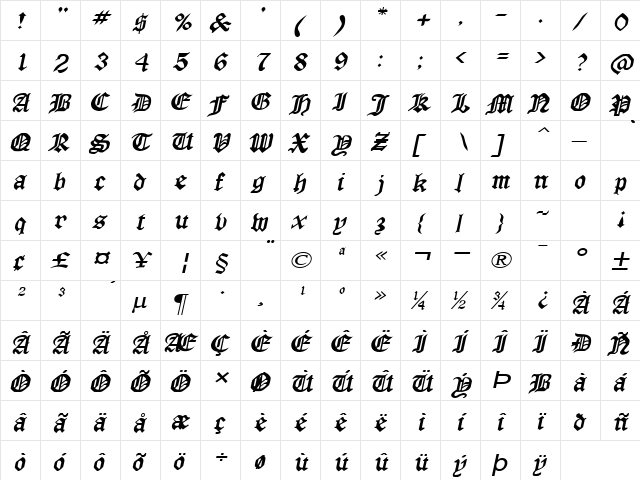
Manuscript-Extended Italic Font Preview
Manuscript-Extended Italic
Manuscript-Extended Italic Font Details
Design Context for Manuscript-Extended Typeface
Manuscript-Extended flows with the natural rhythm of handwritten lettering, making it ideal for designs that call for warmth and personal expression.
Font Pairing: Combine Manuscript-Extended with a simple geometric sans for maximum contrast — the tension between flowing curves and clean structure is a classic typographic pairing.
Pro Tip: Pair Manuscript-Extended with a clean sans-serif for supporting text. The contrast between fluid script and geometric structure creates an elegant typographic hierarchy.